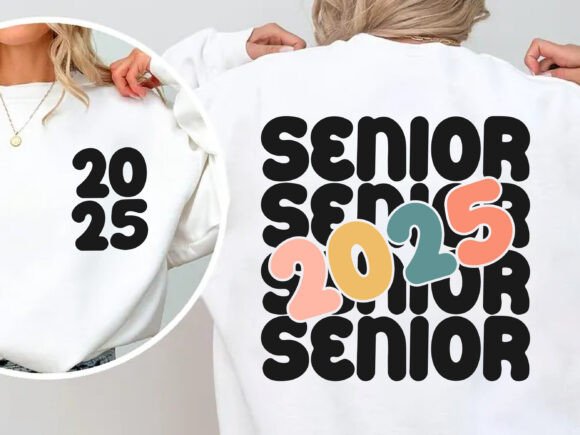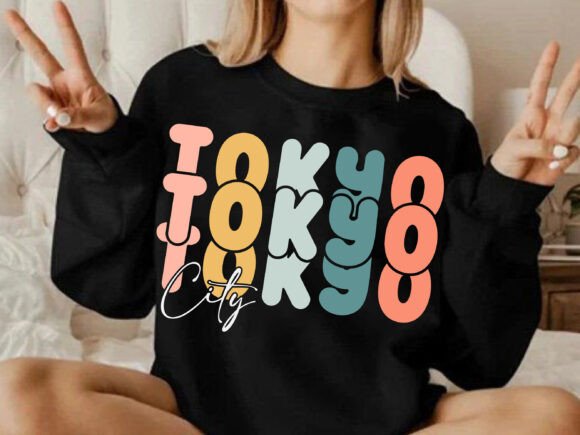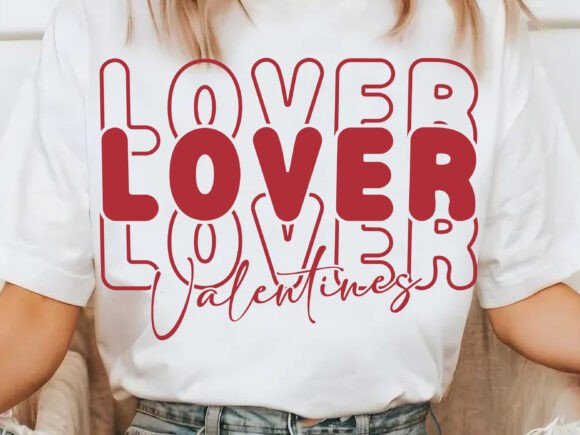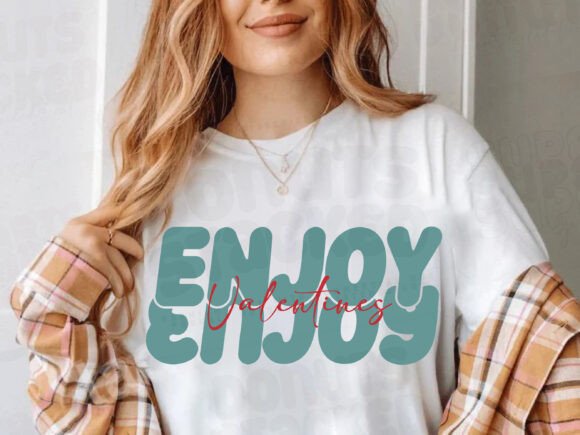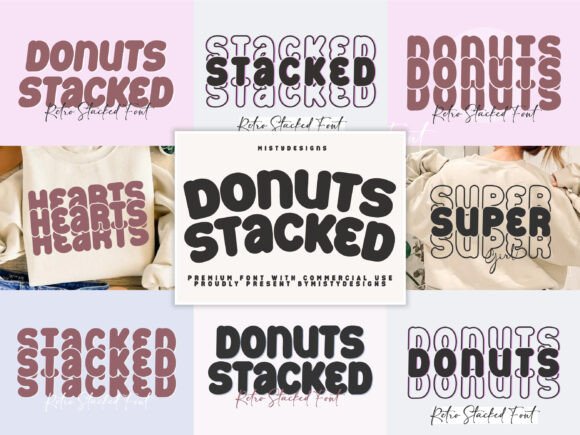
Introducing the Donuts Stacked Bundle Font: A Trendy and Fun Font Style
Are you tired of using the same old fonts for your designs? Look no further! The Donuts Stacked Bundle font is here to take your text designs to the next level. This trendy font style features a stacked effect that is sure to grab attention and add a touch of fun to any project. In this article, we’ll dive into the features and benefits of the Donuts Stacked Bundle font, and explore how you can use it to create eye-catching and engaging text designs.
What is the Donuts Stacked Bundle Font?
The Donuts Stacked Bundle font is a unique and modern font style that features a stacked effect, giving it a 3D-like appearance. The font comes with Italic glyphs, which provide even more flexibility and creativity for your text designs. The font is easy to use and can be applied to a wide range of projects, from social media graphics and posters to logos and branding materials.
Key Features of the Donuts Stacked Bundle Font
- Stacked Effect: The font features a stacked effect that gives it a unique and trendy look.
- Italic Glyphs: The font comes with Italic glyphs, which provide more flexibility and creativity for your text designs.
- Easy to Use: The font is easy to use and can be applied to a wide range of projects.
- Perfect for Everyone: The font is suitable for designers, crafters, and anyone looking to add a touch of fun to their text designs.
Benefits of Using the Donuts Stacked Bundle Font
So, why should you use the Donuts Stacked Bundle font? Here are just a few benefits:
- Adds Visual Interest: The stacked effect and Italic glyphs provide a unique and eye-catching way to display text.
- Increases Creativity: The font’s versatility and flexibility make it easy to experiment with different text designs and styles.
- Saves Time: The font is easy to use, which means you can create professional-looking text designs in no time.
- Perfect for Branding: The font’s trendy and modern look makes it perfect for branding and logo design.
How to Use the Donuts Stacked Bundle Font
Using the Donuts Stacked Bundle font is easy! Here are a few tips to get you started:
- Experiment with Different Styles: Try out different font sizes, colors, and styles to see what works best for your project.
- Play with Italic Glyphs: Use the Italic glyphs to add emphasis and create visual interest.
- Mix and Match: Combine the Donuts Stacked Bundle font with other fonts and design elements to create a unique look.
The Donuts Stacked Bundle font is a trendy and fun font style that is perfect for designers, crafters, and anyone looking to add a touch of fun to their text designs. With its stacked effect and Italic glyphs, this font provides endless possibilities for creative and eye-catching text designs. So, get creative and let the good times roll! Thank you for checking out the Donuts Stacked Bundle font – we hope you have fun using it!